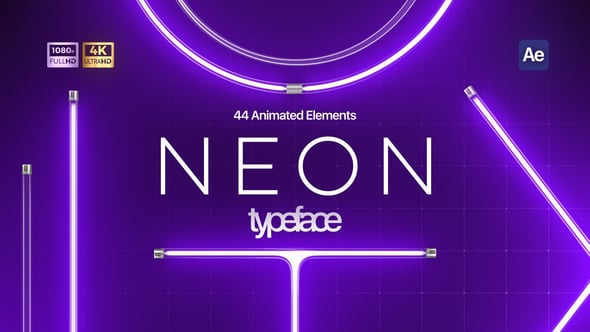
While I can understand we do need to view videos, which may a personal project or work, he says, video editing is the last thing many people would consider. But one thing I feel is astoundingly worth mentioning is that polymaths of logic and visuals, video editing does require certain tools and assets and the work one puts in may in fact be grossly rewarded. Talking about a visual masterpiece that would be featured in a sci-fi film, Videohive 55903435 Neon Typeface promises to be a great choice. One can easily download it for free at GFXInspire and the After Effect pack is composed of numerous animated neon letters, numbers, and symbols which will allow you to spice up your videos.
This article will focus more on the features the neon typeface pack has and why it could fit perfectly in your pack of editing tools. In case you are a work-based video editor or are a new one, it won’t come are big surprise as this pack offers a smooth experience being versatile enough to cover the needs of the project.
So what is this Neon Typeface? This After Effects project for Videohive 55903435 is greatest for all those people who need some glowing letters, numbers, and symbols. This project contains 44 animated elements that are glowing and created in realistic neon plastic tubes. Inside these tubes are glass elements that make the elements look alive. Also, these elements are great to spice up your neon text animations, logos, and signs too.
If you’re creating social media videos, corporate videos, vlogs, etc. or in need of catchy intros, this pack is just perfect to help adding the right amount of pop to your video. This neon typeface allows you to work on professional as well as creative projects all thanks to its high resolution (4K) and adjustability.
Key Features of Videohive 55903435 Neon Typeface
1. 44 Animated Parts of Neon
The pack includes 44 animated elements that constitute glowing letters, numbers, and symbols. They have been animated in realistic neon style and enclosed in glass tubes which gives them a contemporary look. With these animations your titles, logos, and signs can be appealing for any video type.
1. HD Ready (4K) Graphics
The neon typeface pack is ready for 4K graphics, this guarantees your video will always be neat on any HD screen. Whether you’re making a YouTube video, a corporate presentation, or an advertisement the sharpness will most certainly get you noticed.
1. Fully Customizable Properties
What makes this pack unique in a greater way is its customizability. You can change a few properties like:
Glow intensity: Allow for editing of the brightness of the neon elements.
Flicker effect: Get an automatic flicker which simulates real neon lighting effects.
Color: Change the default neon color to suit your preferred project color.
Animation duration: Time the animation according to the pace of your project.
These features allow you to customize the visuals and animation sequence for each component enabling you to achieve your desired neon effect on your video in the most perfect way possible.
1. Stunning Neon Effect
Every single element in the neon typeface pack has been created to seem like glass tubes that have been used to build the letter which will add a decent touch to the neon text volume which for example includes, logos and many more. By looping in such minute details, this also ensures that the final outcome of your neon text would be exactly how you envisioned it, sharp and full of life, perfectly matching this theme of the project.
1. Simple to Use and Customizable with Basic Properties
The beginning pack of neon typeface was built for a target market that included beginners users so it is user friendly. It adopts the use of Essential Properties within After Effects such that even if the effects and the animations are numerous and complex you can just change them through the timeline panel. This allows videos to have a distinctive neon touch, quickly adapted to fit the particular occasions or events.